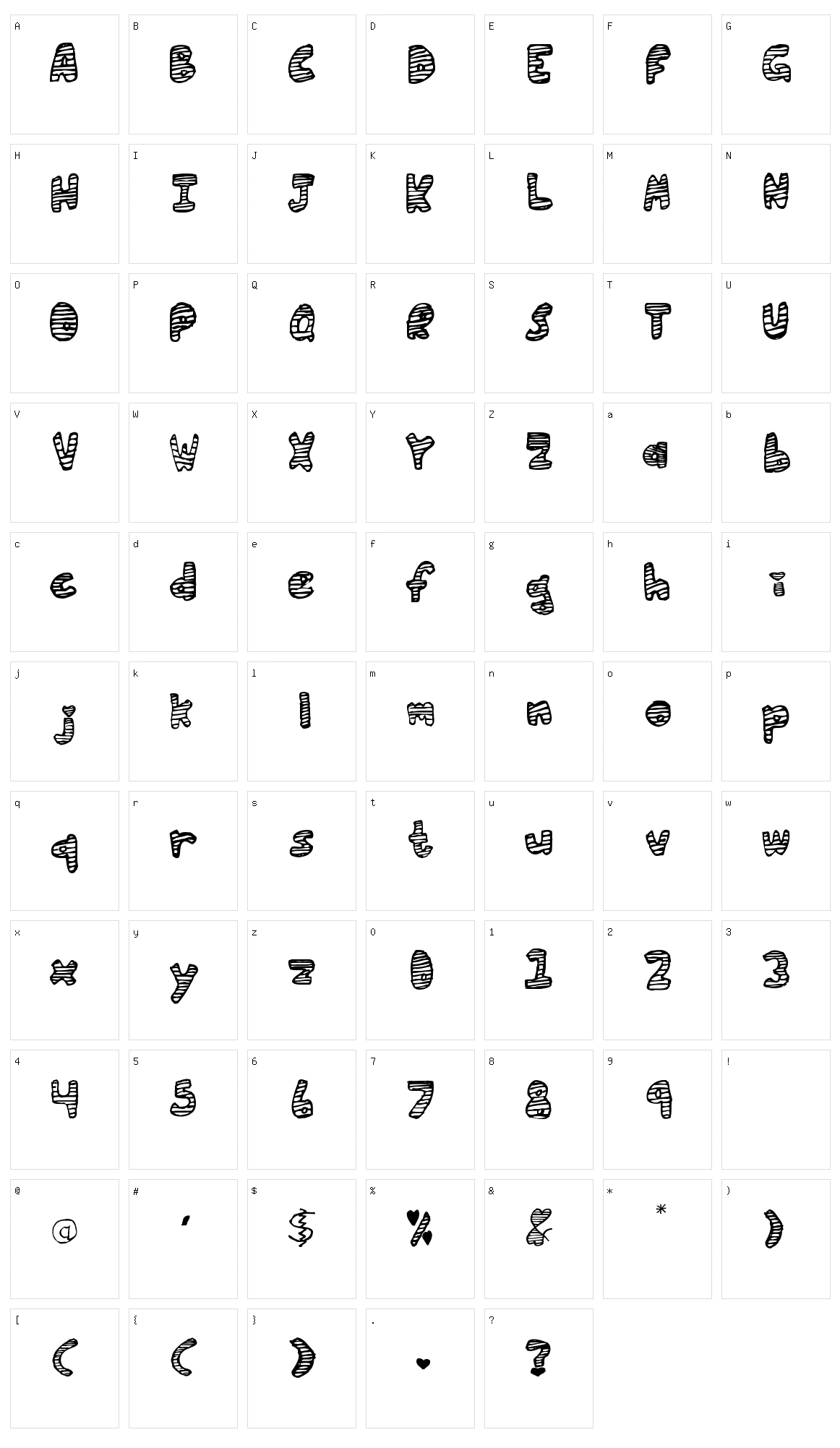
The free font Love in Stripes is carefully designed by Kate Woods, showcasing a thoughtful balance of creativity and usability and falls under the Cartoon font style. When you download the ZIP file, it contains only 33.64 KB of font files, making it lightweight and quick to download. Please review the license details below to understand permitted usage and distribution rights. If license information is not available, we recommend using this font for personal projects only or contacting the author directly for commercial usage permissions.